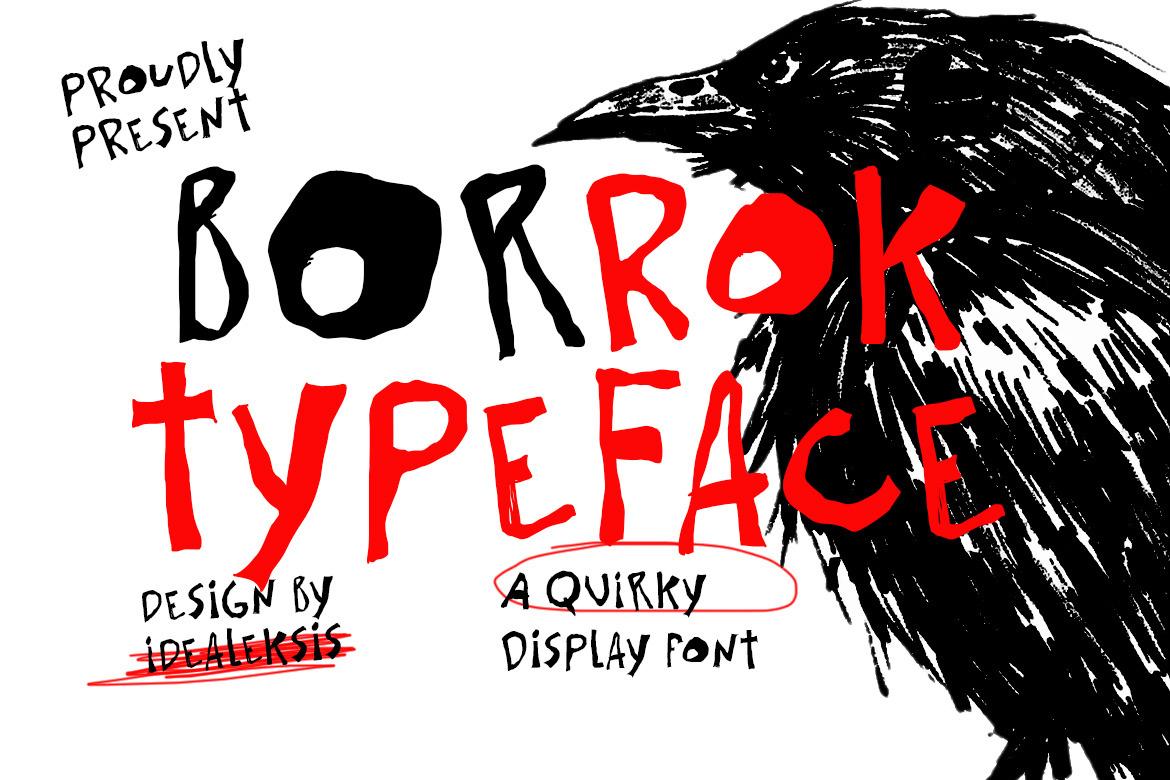
Borrok Typeface
The Borrok typeface is a bold, hand-drawn display font characterized by its raw, scratchy textures and irregular stroke weights. It features a high-contrast, expressive aesthetic with jagged edges and uneven letterforms that evoke a sense of urgency and rebellious energy. The glyphs are chunky and solid, with a distinct lack of traditional serifs, instead opting for blunt, rough terminals. This font is ideal for posters, album covers, and branding projects that require a gritty, underground, or avant-garde visual identity.